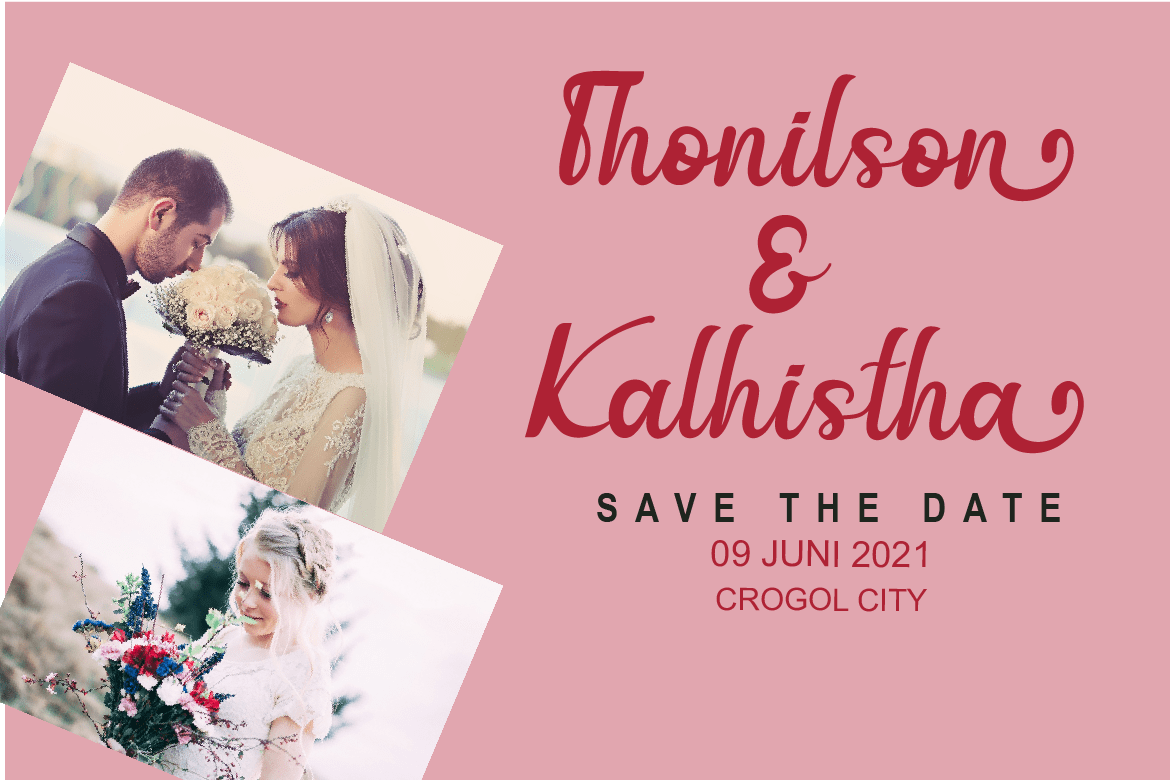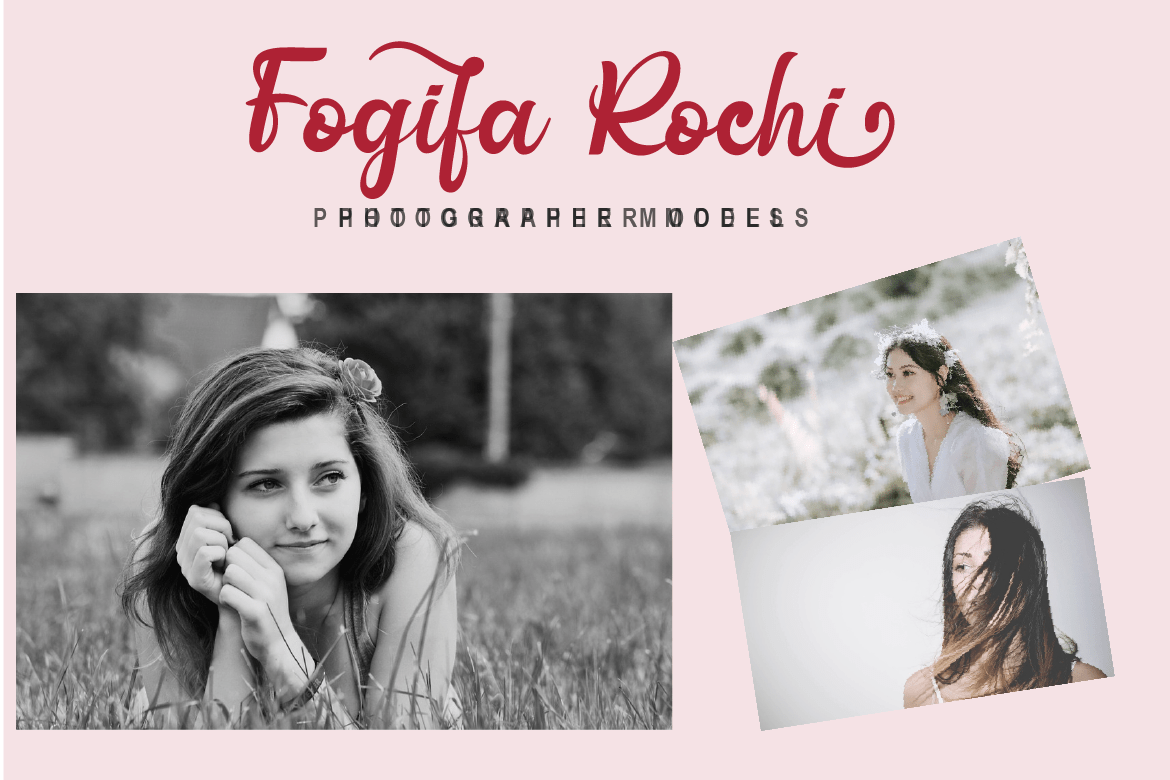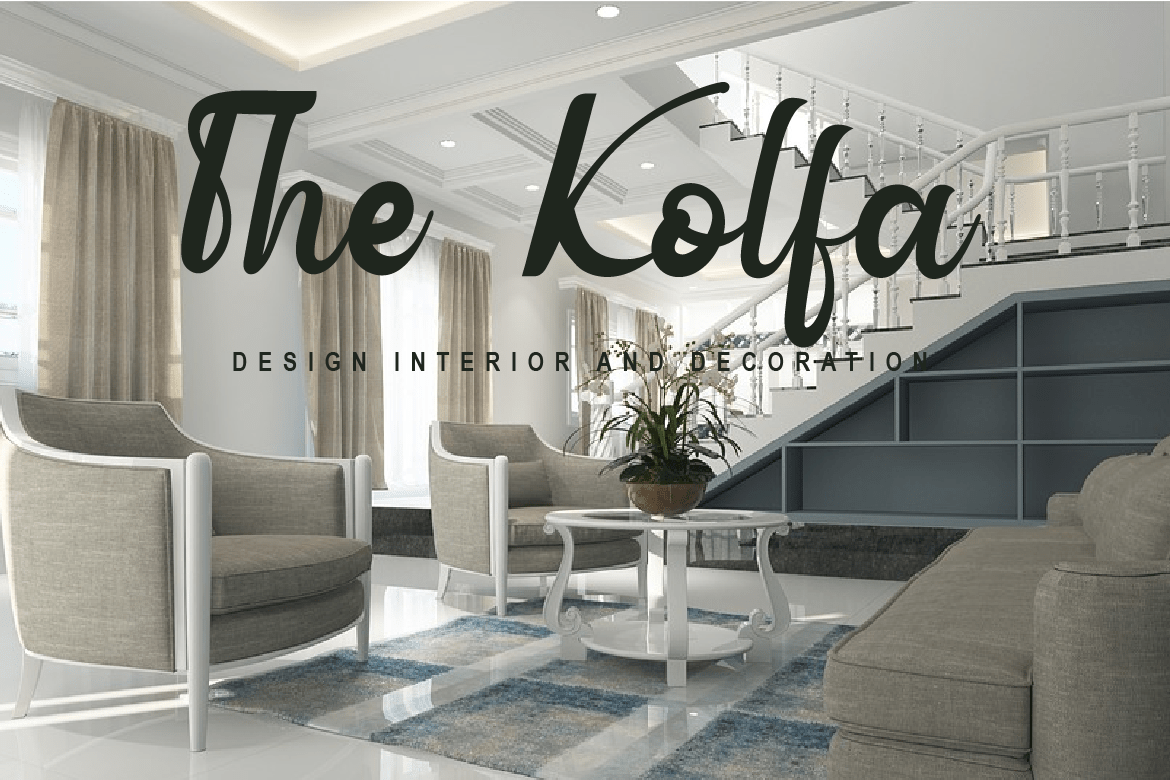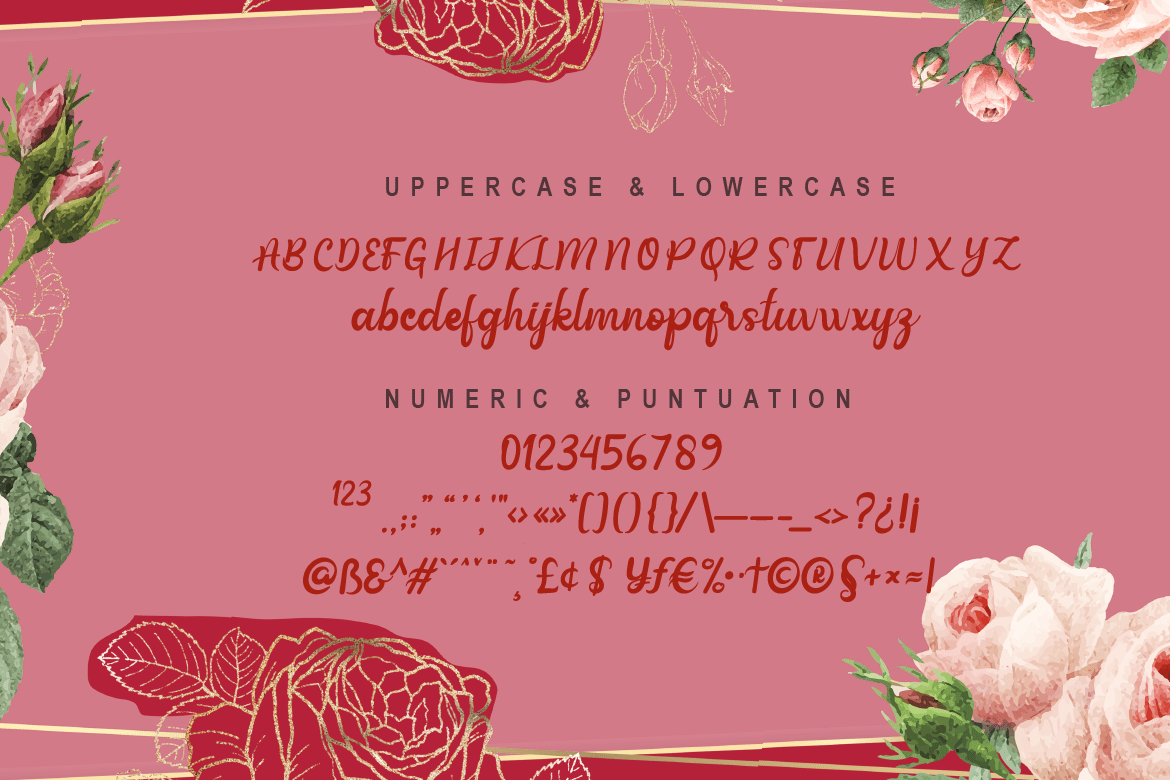
Burkict Font
Burkict Script Font
This is a chic, refined script font that emanates sophistication and elegance. Its stylish alternates and ligatures make this font the perfect match for any project.